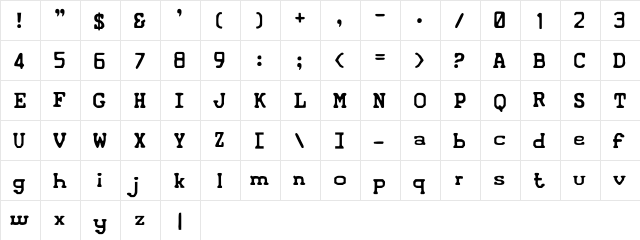
Iconified Regular
Design Context for Iconified Typeface
Iconified is a composed and adaptable typeface that performs quietly and consistently across a wide range of design contexts.
Pro Tip: Pair Iconified with a font of contrasting weight or personality to build a more expressive typographic hierarchy.